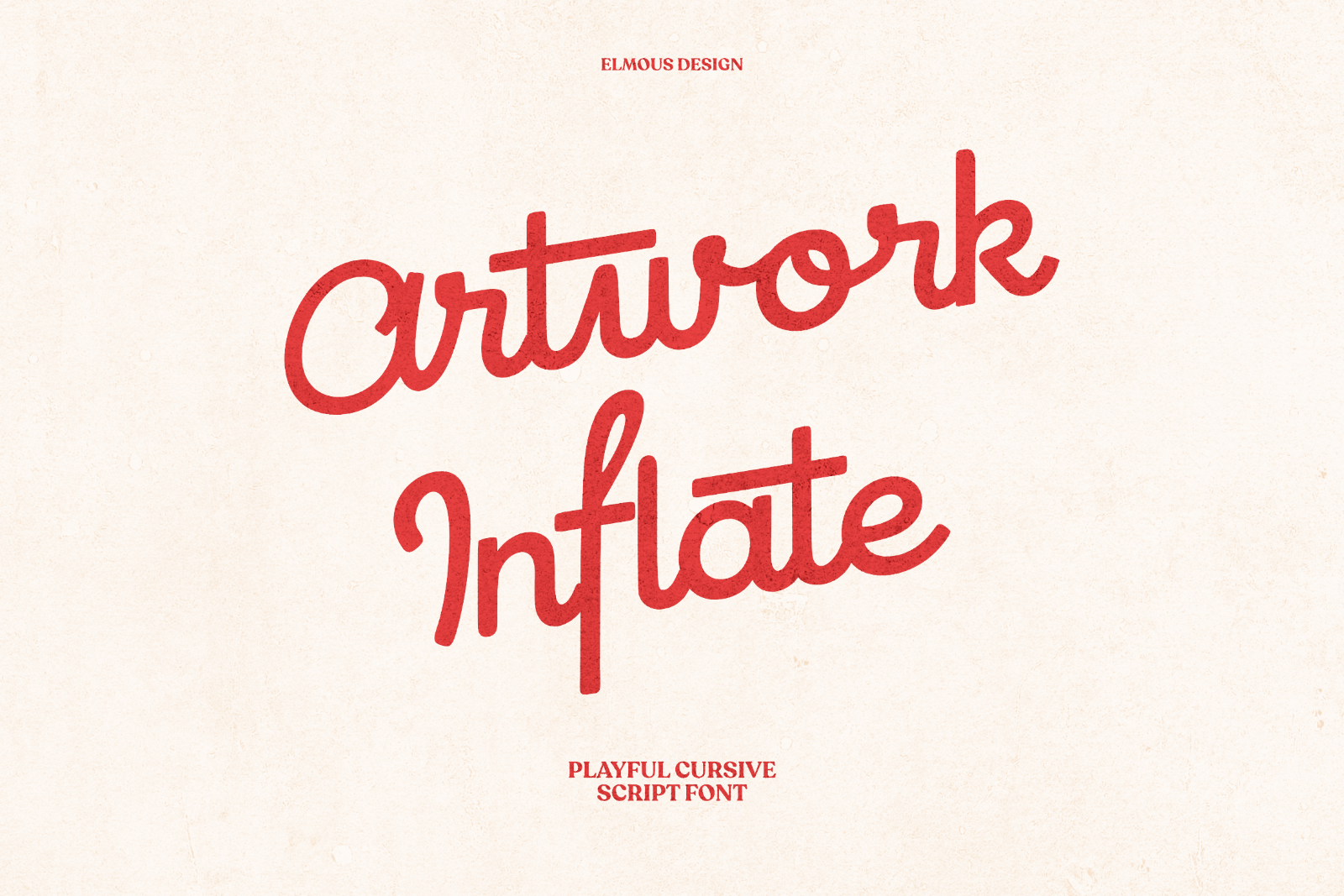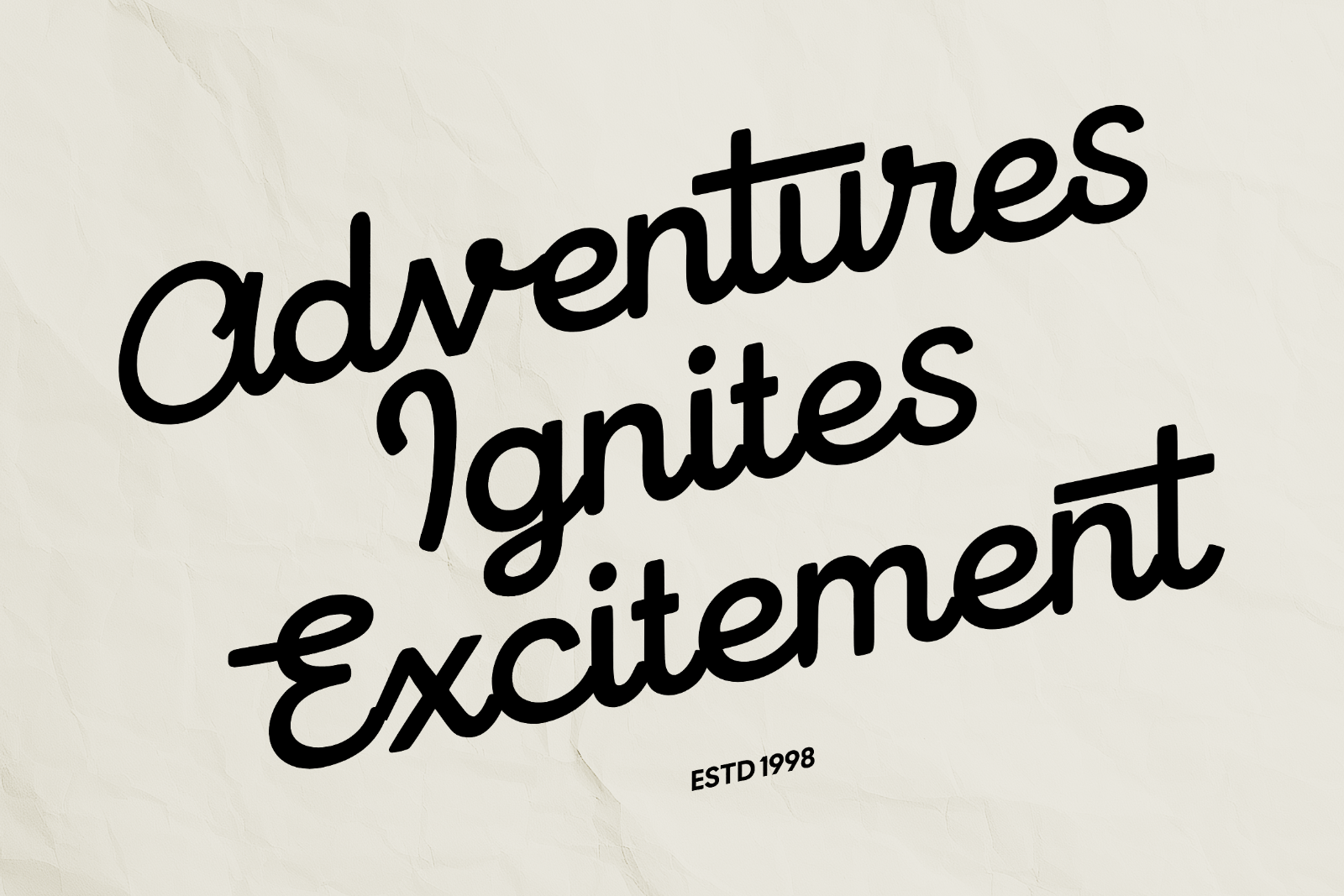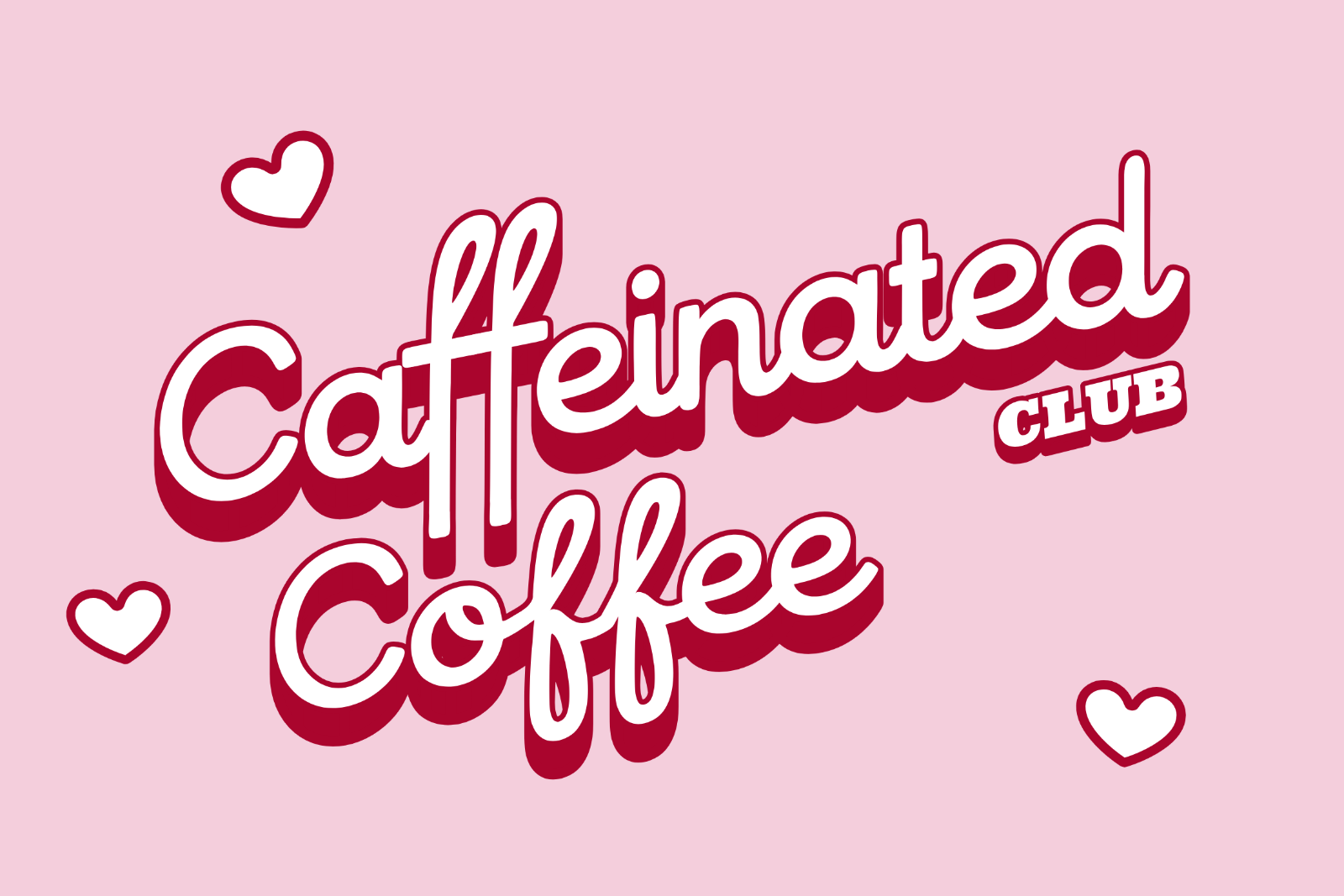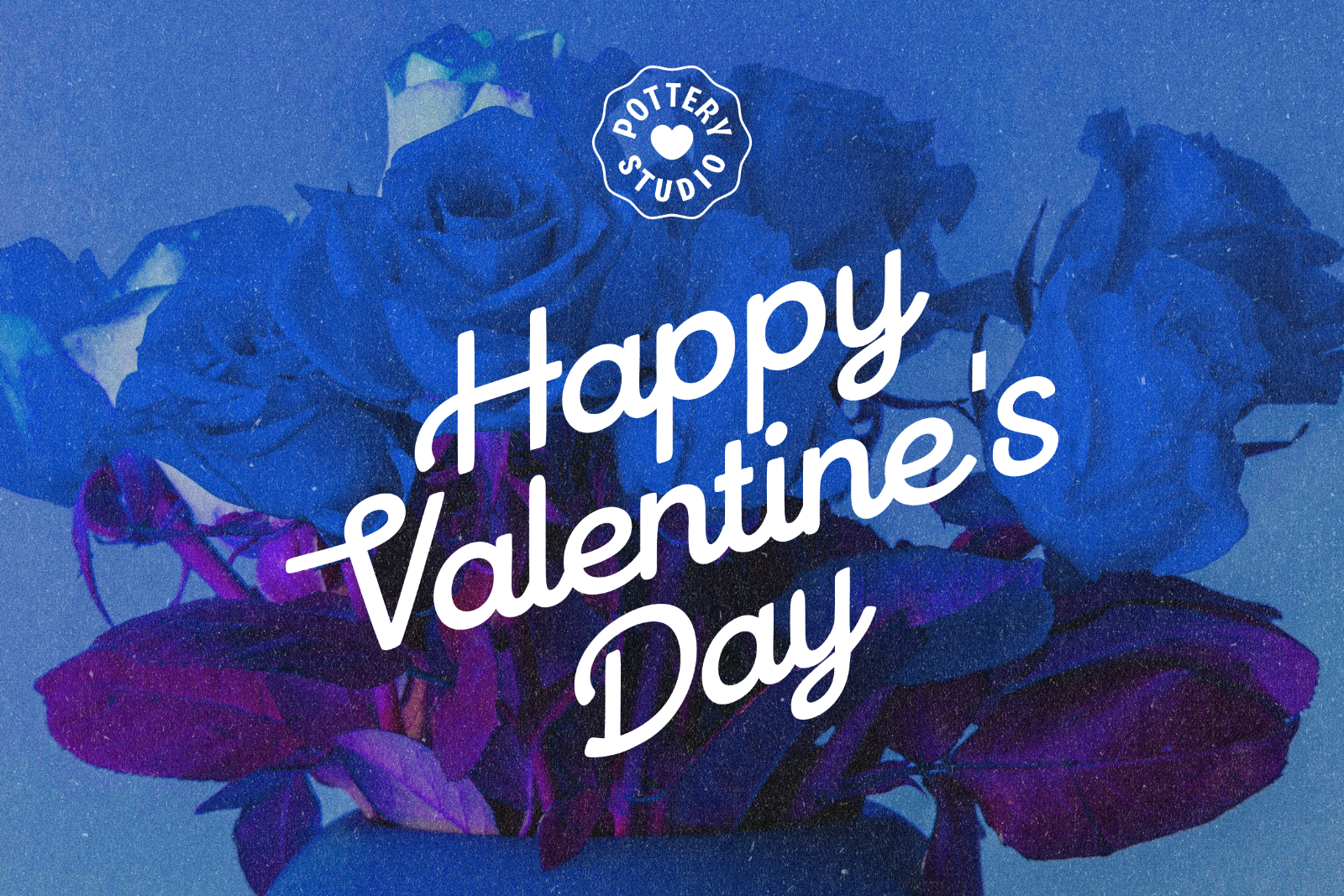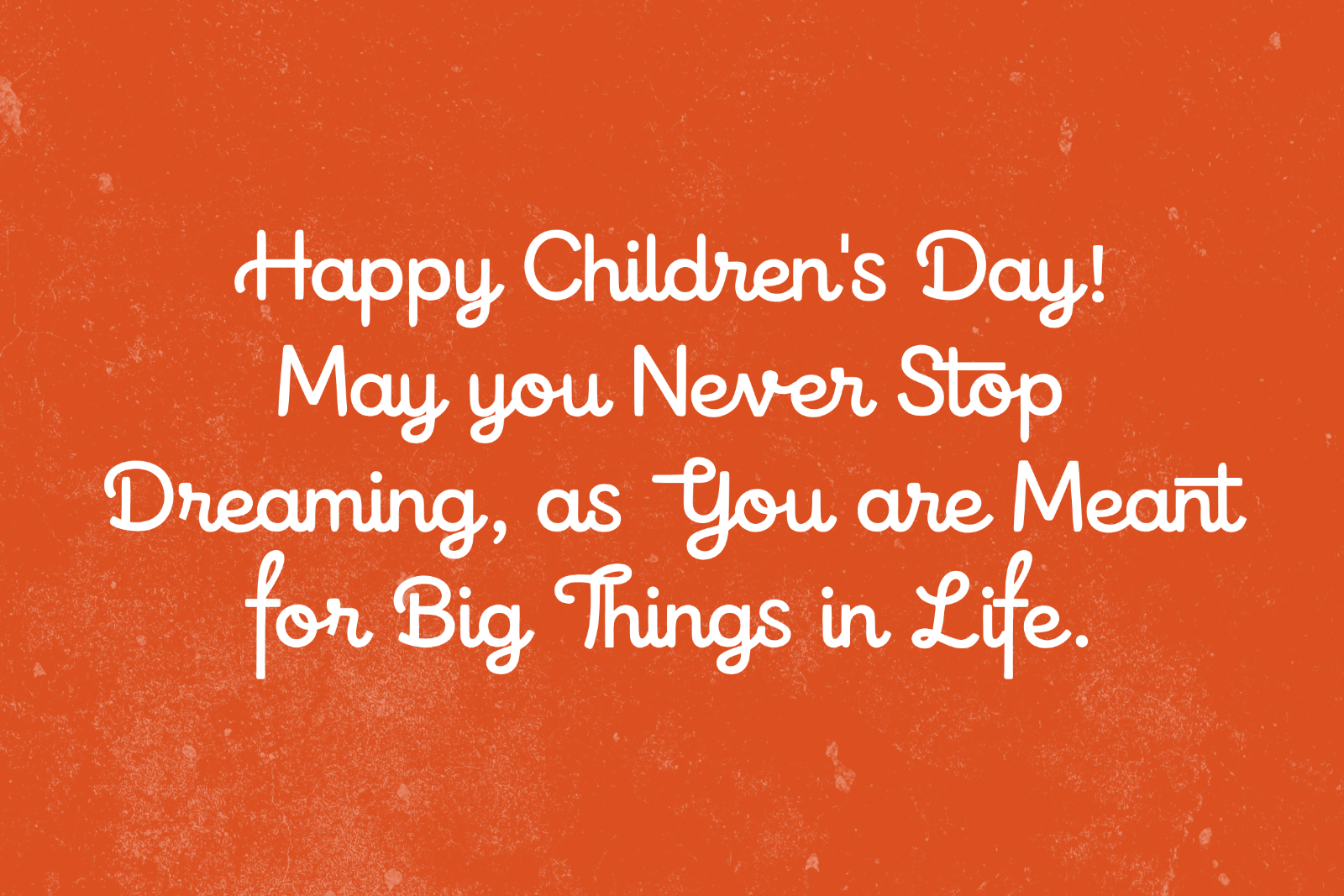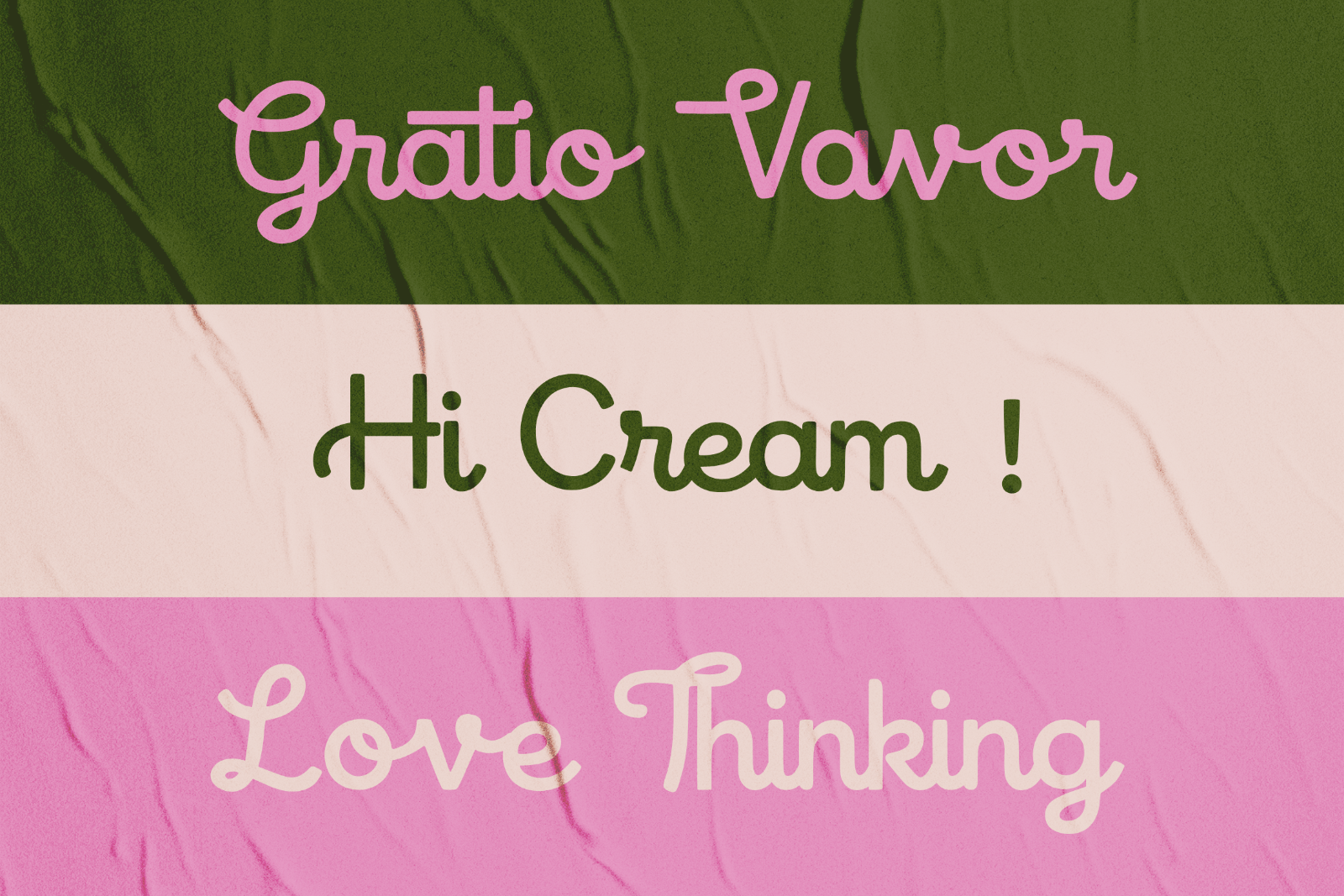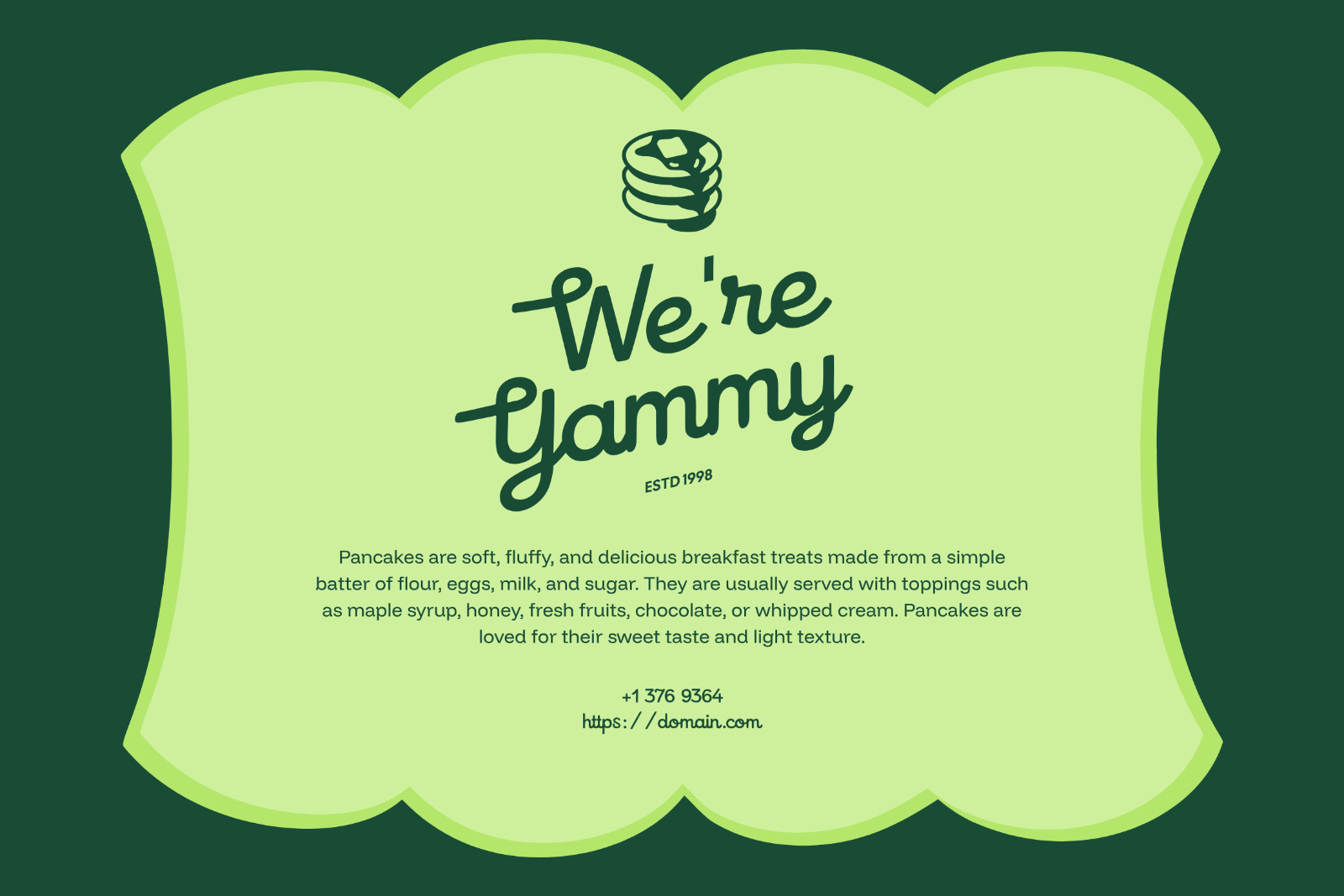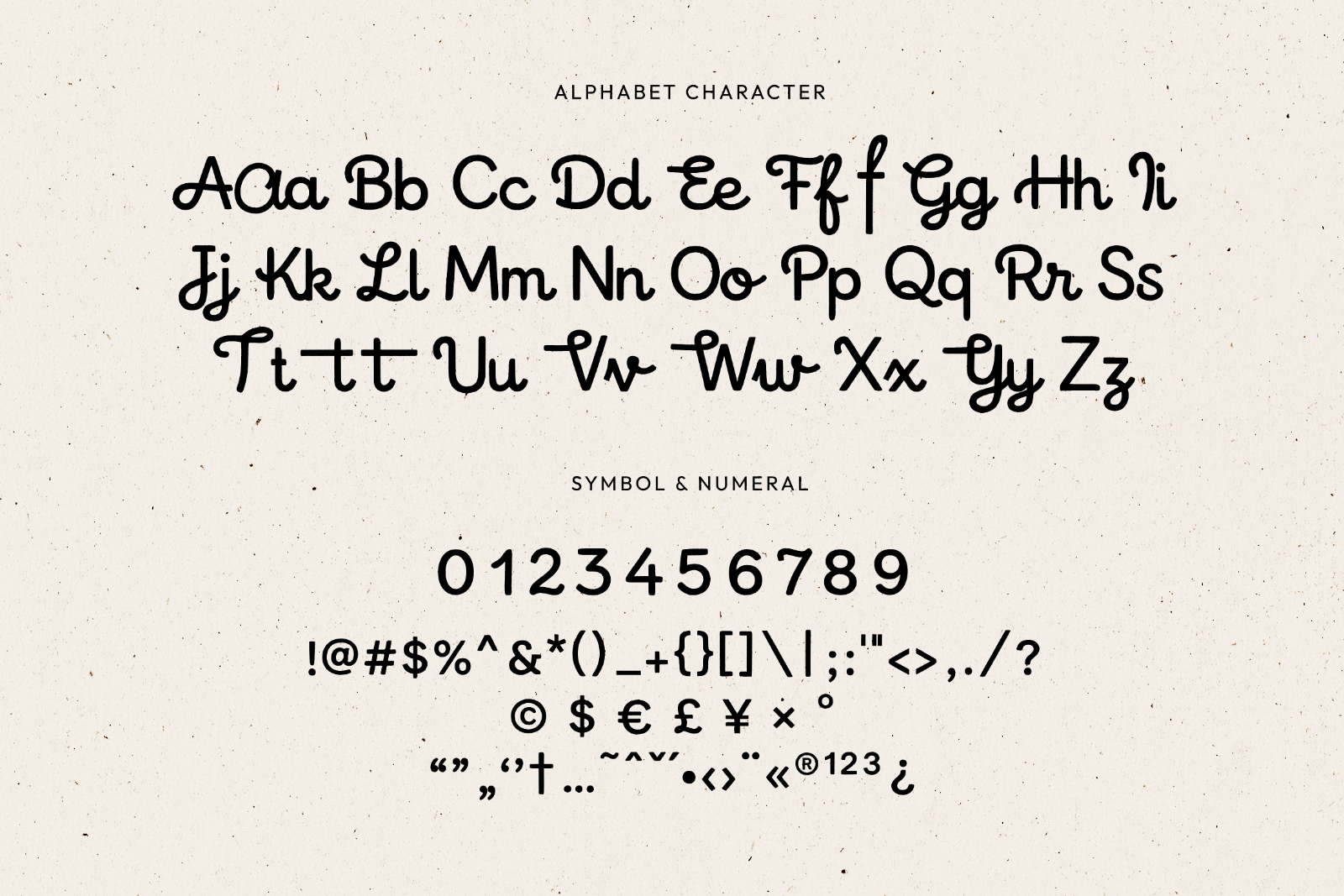
Bring a touch of charm, nostalgia, and cheerful personality to your designs with Artwork Inflate a playful, monoline cursive script crafted with smooth, tubular curves and friendly proportions.
Designed with uniform line thickness and rounded end caps, this font delivers a handcrafted, retro-modern aesthetic that feels approachable and effortlessly stylish.
Soft, bubbly letter ends give the typeface a friendly, welcoming, and relaxed touch. This font suitable for:
• Branding and Logos: Perfect for modern bakeries, pottery studios, lifestyle brands, and boutique shops.
• Packaging and Labels: Stand out on food containers, cosmetic bottles, sticker packs, and merchandise.
• Social Media and Quotes: Ideal for vibrant Instagram posts, Pinterest graphics, and motivational posters.
• Events and Greeting Cards: Add a sweet, romantic tone to Valentine's Day cards, Children's Day promotions, wedding invitations, and party decor.
• Uppercase and Lowecase Characters.
• Numerals and Punctuations.
• Alternates and Ligatures.
• Multilingual Support.